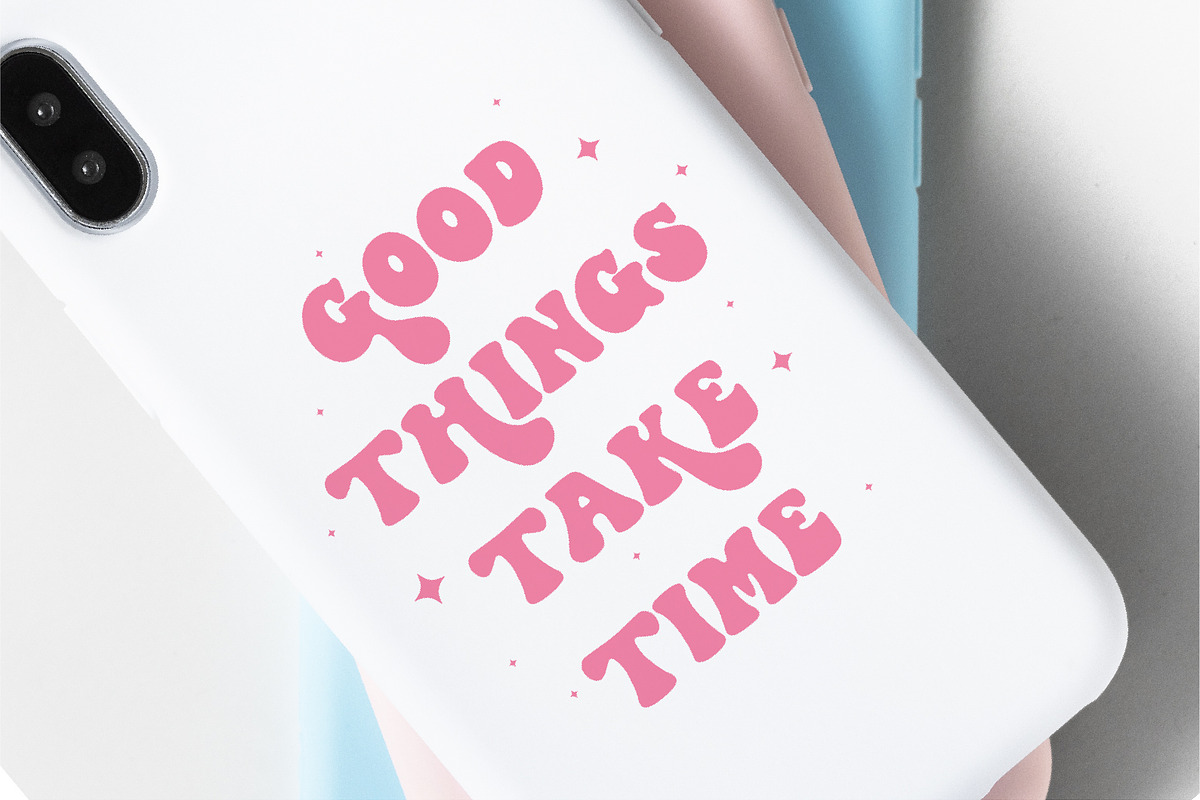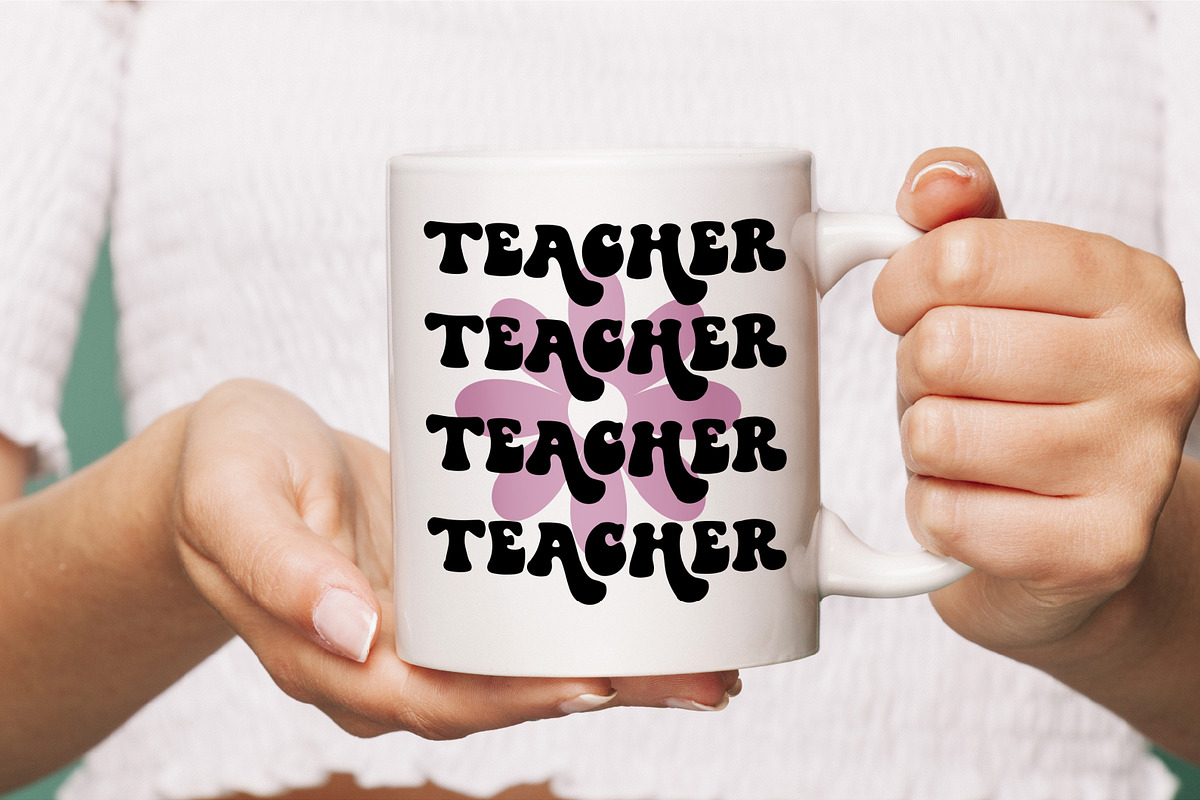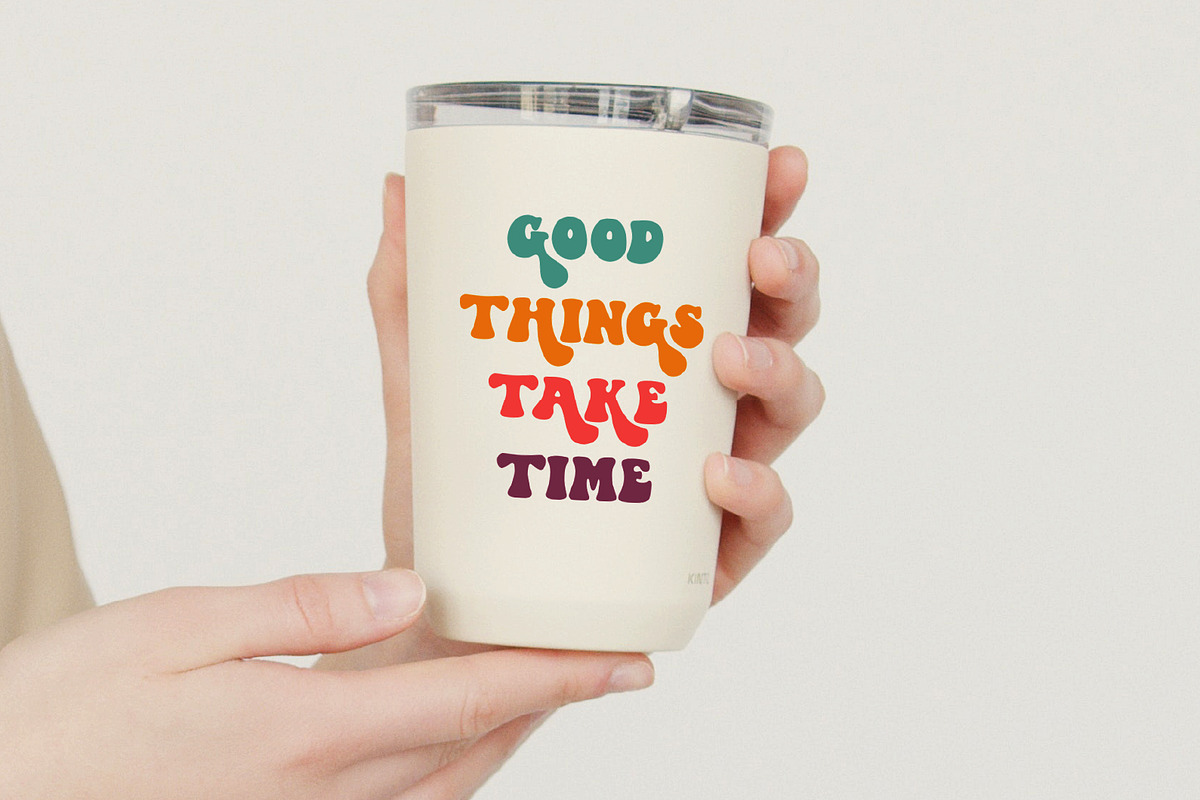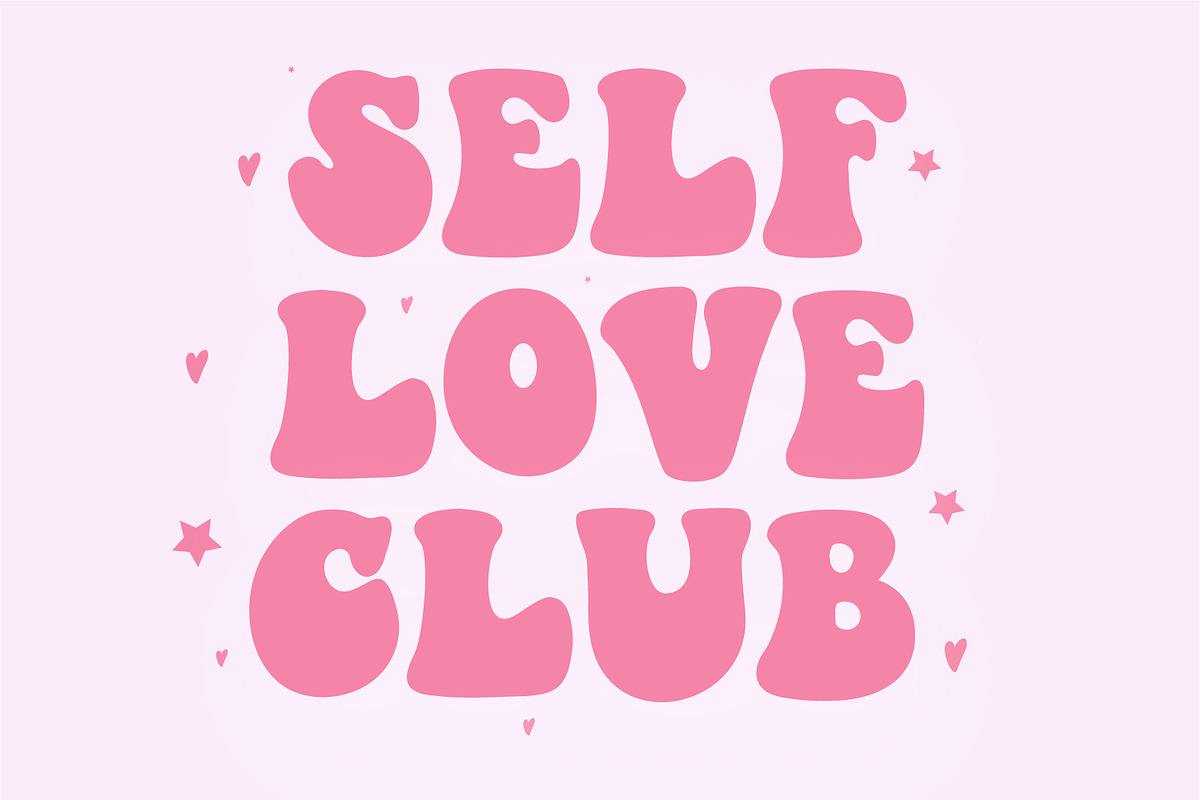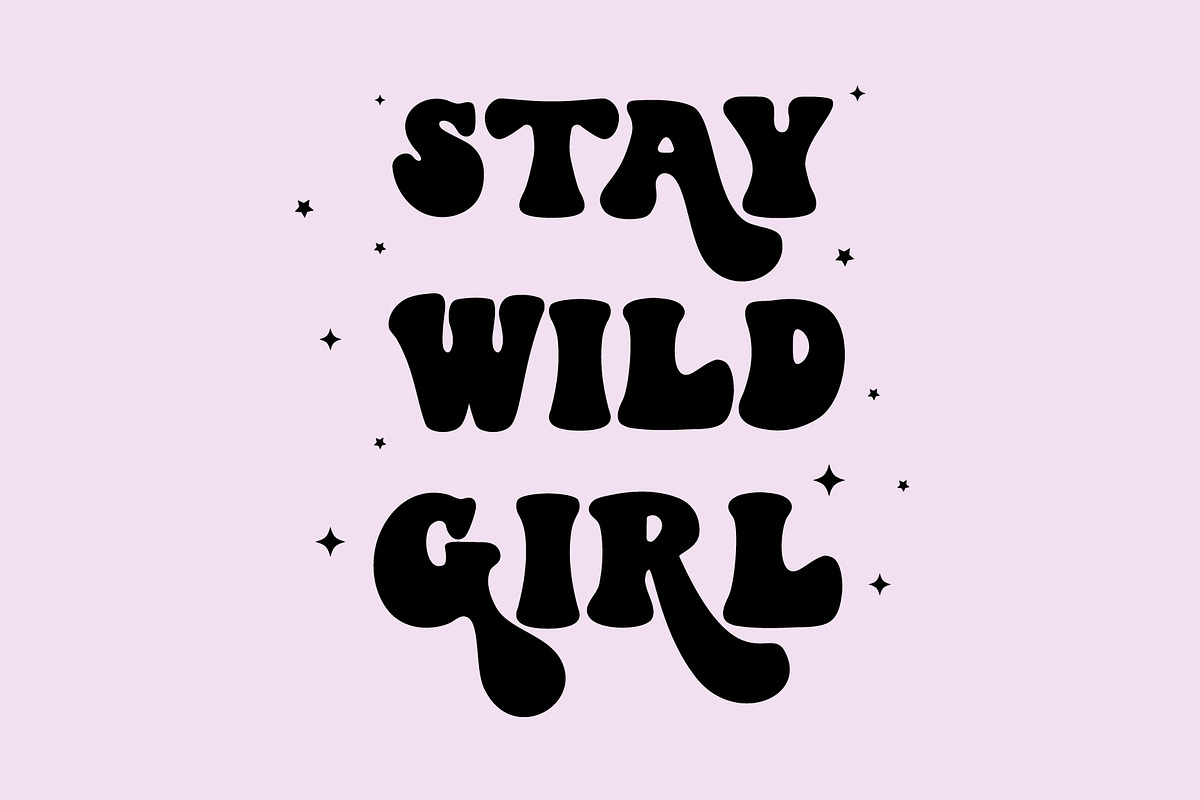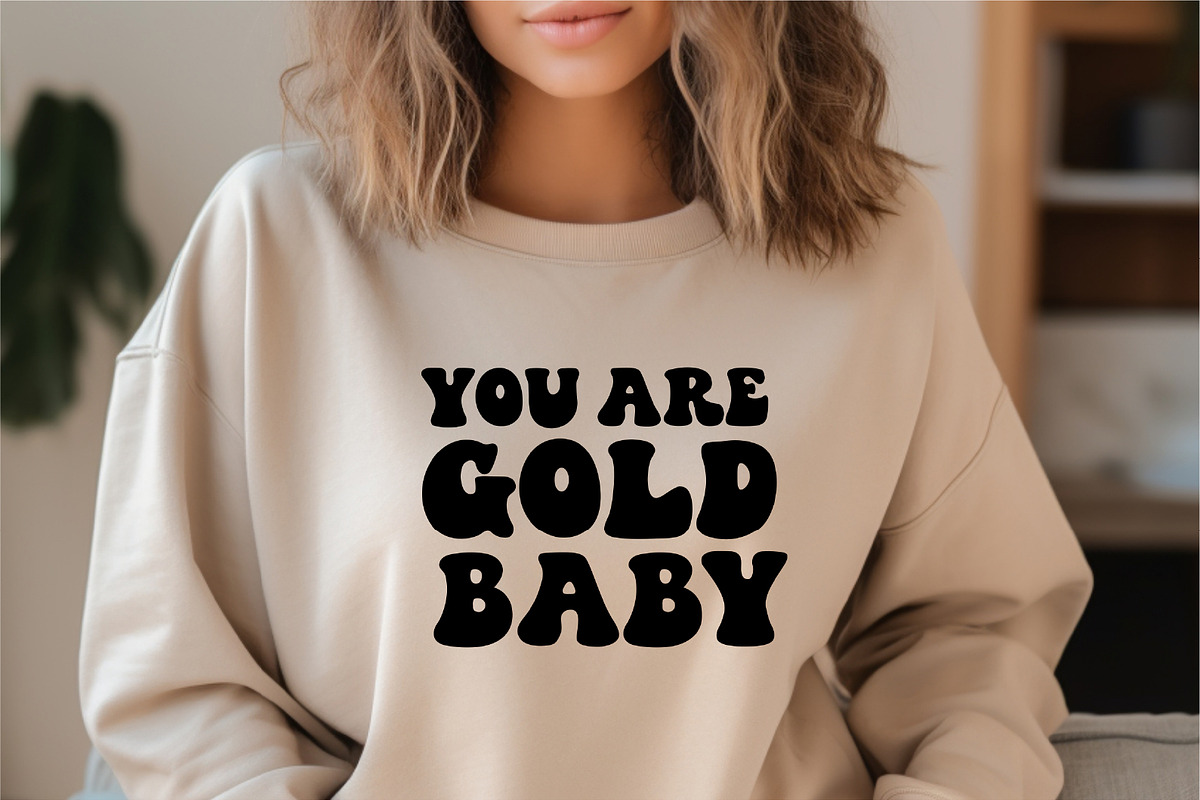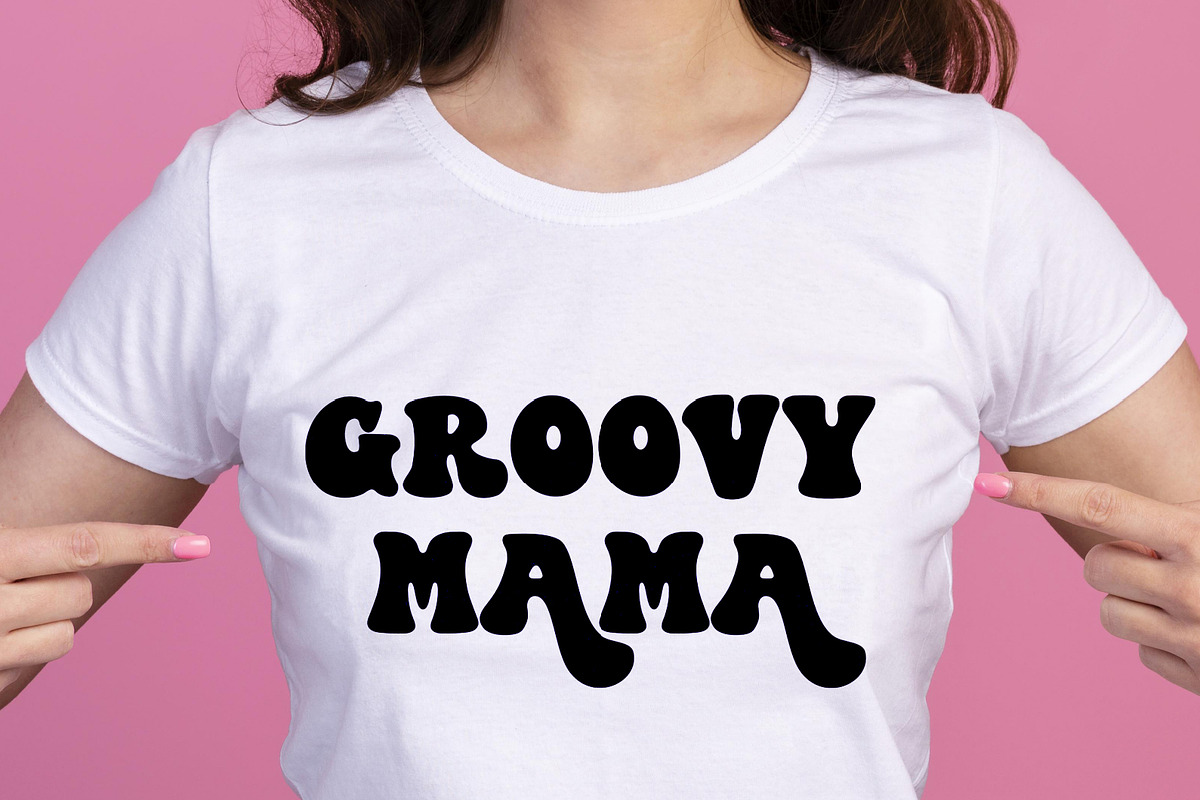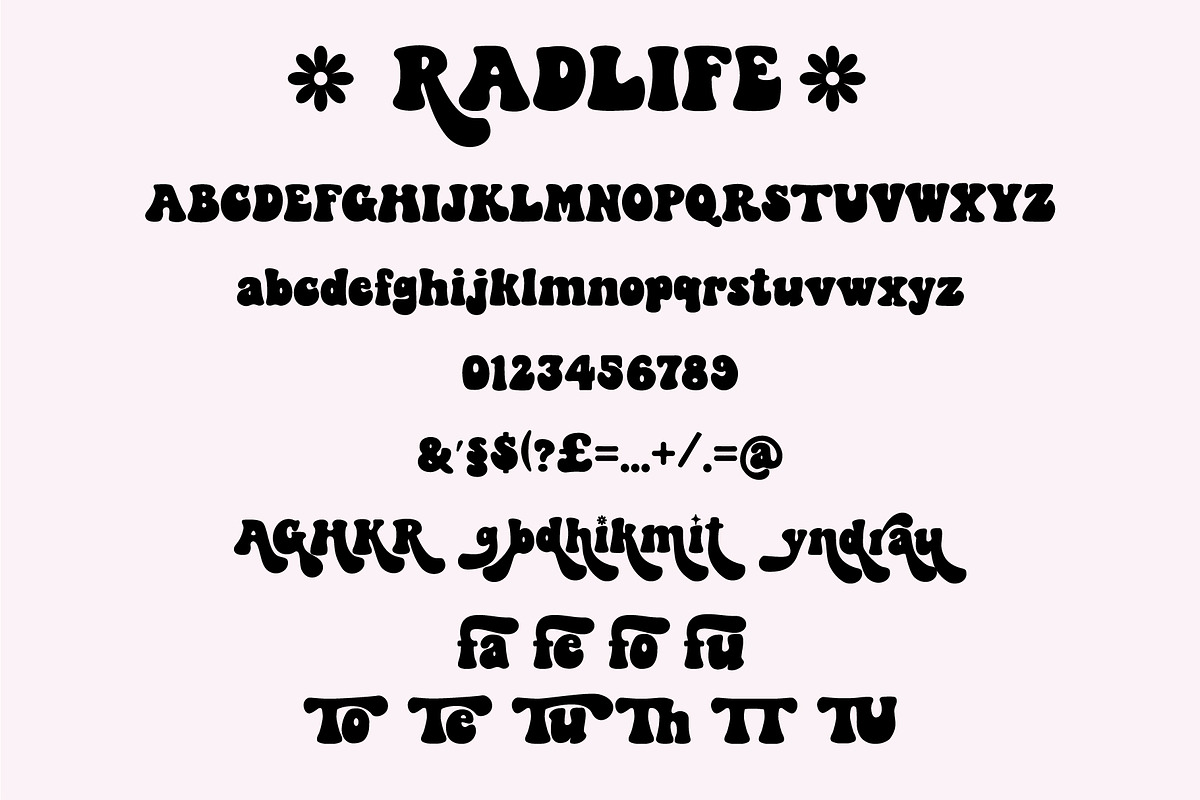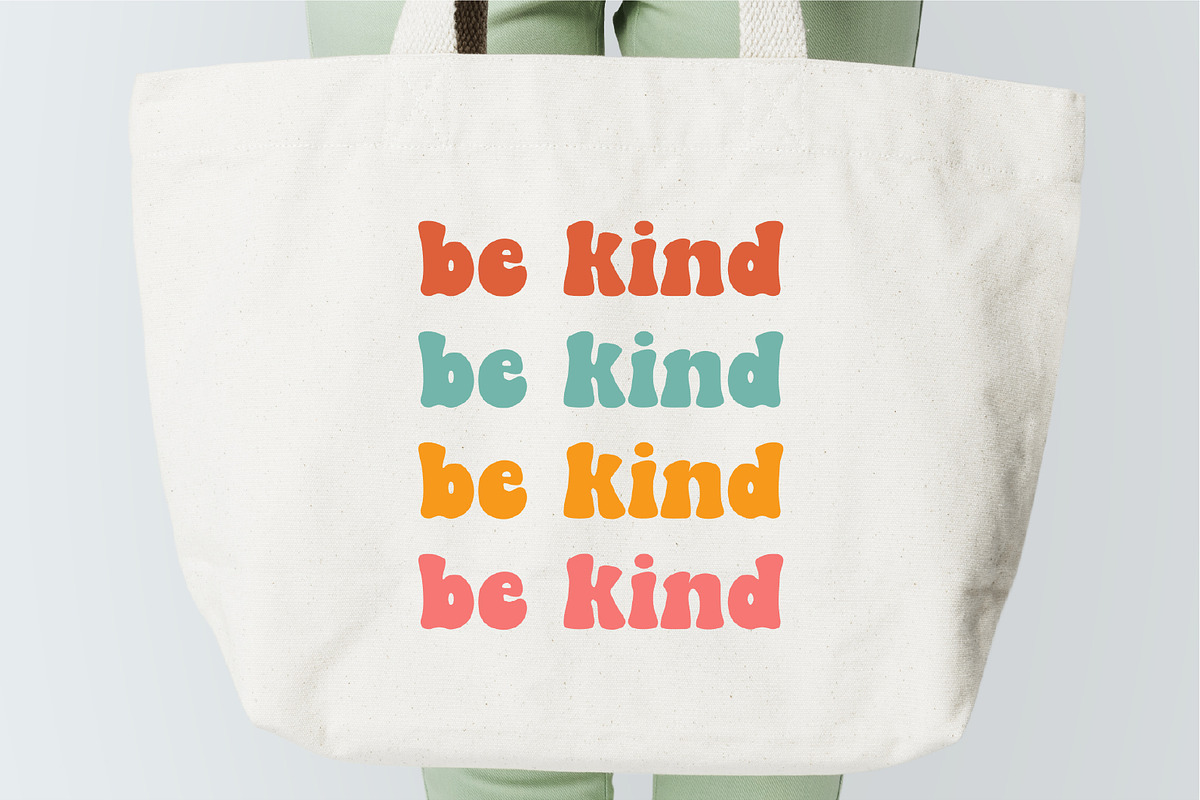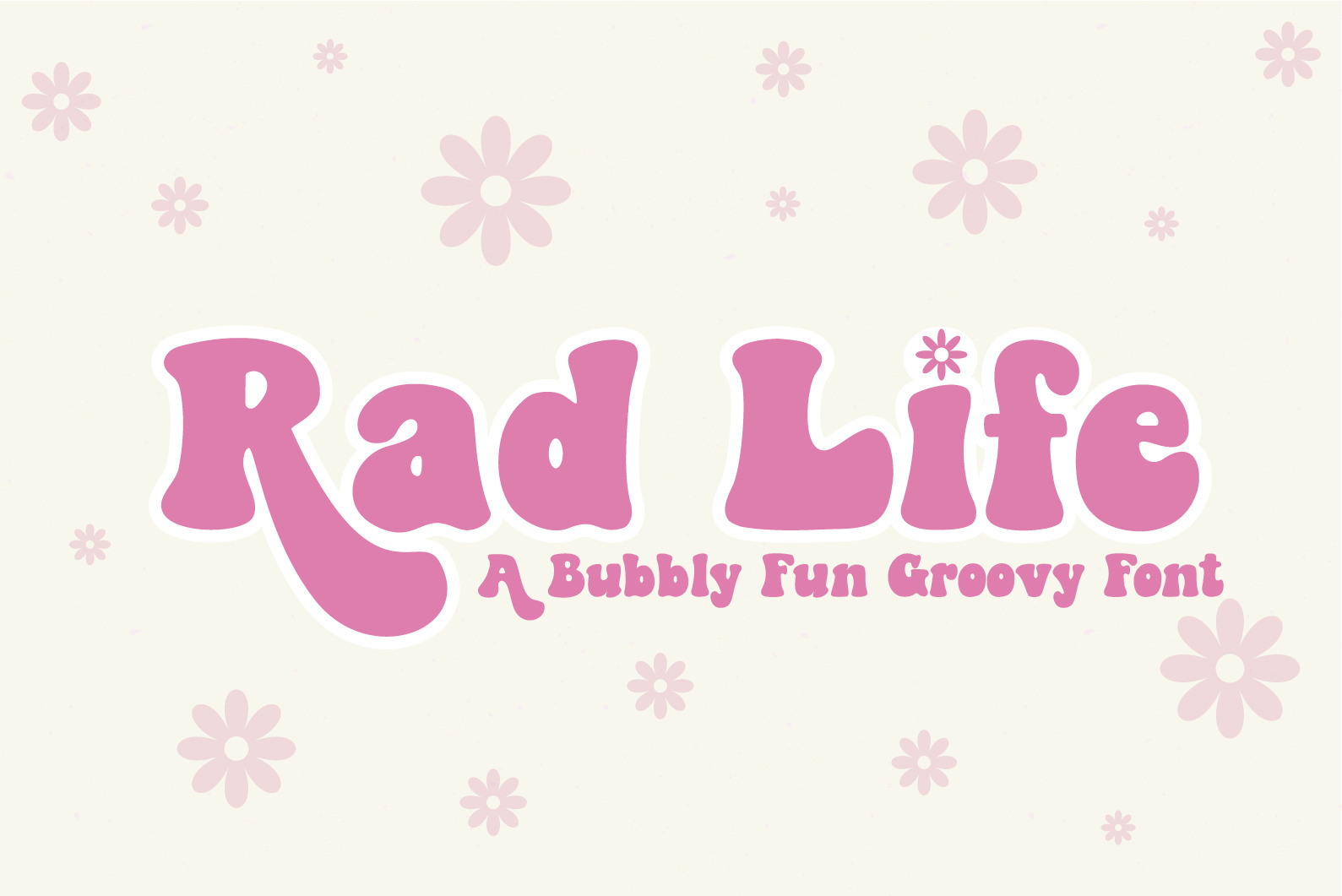
Rad Life A Bubbly Groovy Font
Introducing "Rad Life" - the Groovy Handwritten Hippie Font!
Get ready to unleash your inner free spirit with the vibrant and retro vibes of "Rad Life" - the font that screams peace, love, and grooviness!
With its playful and handwritten style, "Rad Life" brings your designs to life, adding a burst of energy and a nostalgic touch. It's all about embracing the laid-back bohemian spirit and spreading good vibes wherever you go.
Whether you're designing a poster, creating invitations for a fun-filled gathering, or adding a whimsical touch to your social media graphics, "Rad Life" will instantly transport you to the vibrant days of peace, love, and flower power.
This font is the perfect choice for anything that needs a touch of funkiness and retro charm. Let your creativity flow as you embrace the pure essence of the 60s and 70s with "Rad Life". It's time to turn up the groovy factor and let your designs shine with its bubbly and free-spirited style!
Captivate your audience and infuse your designs with a dash of nostalgia using "Rad Life" - the font that will take your projects to a whole new groovy level!